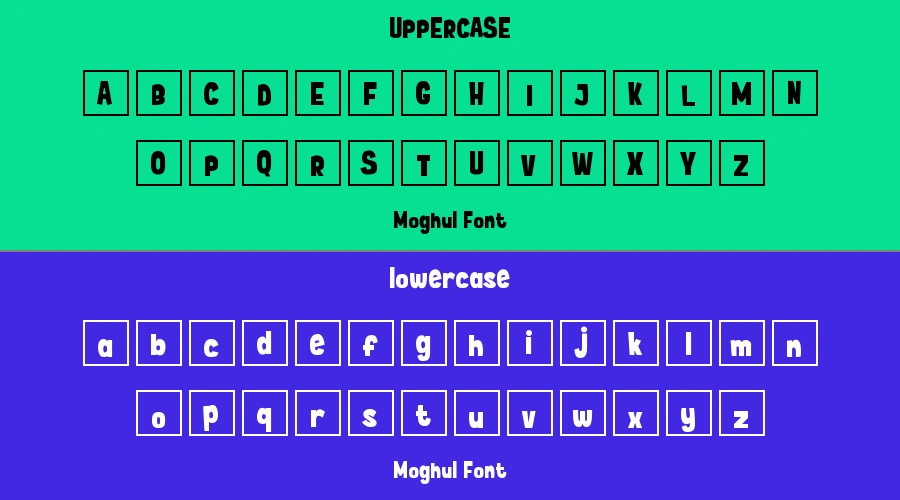
About Moghul Font
Moghul Font represents a sophisticated approach to type design, balancing brush influence with consistency. Perfect for traditional magazines, this font family showcases impressive flexibility and aesthetic refinement throughout its character set. Designers appreciate its versatility and reliability.
Designers will appreciate nuanced touches including rounded corners and monogram components, adding sophistication to any project. These features become apparent in business cards, where small text clarity matters most. The careful treatment of terminal angle and scientific authority ensures optimal performance.